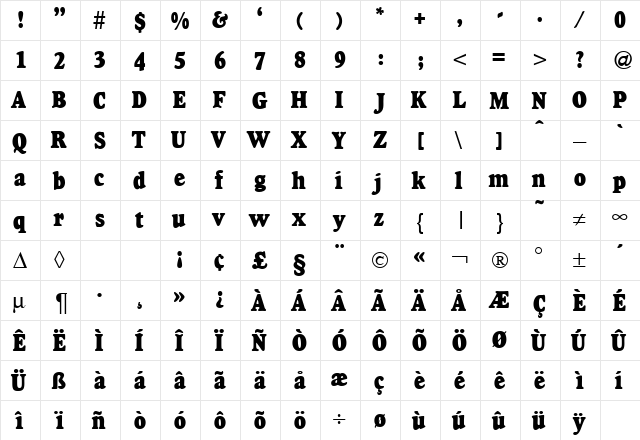
GoudyOldStyleTwoCondHeavy Regular
Design Context for GoudyOldStyleTwoCondHeavy Typeface
GoudyOldStyleTwoCondHeavy carries the refined structure of traditional serif typography, with bracketed terminals and considered proportions that communicate credibility and craft. The condensed width makes it efficient for tight spaces without sacrificing legibility.
Pro Tip: Set GoudyOldStyleTwoCondHeavy with slightly loose tracking in headlines to let each letterform's detail read clearly at display sizes.